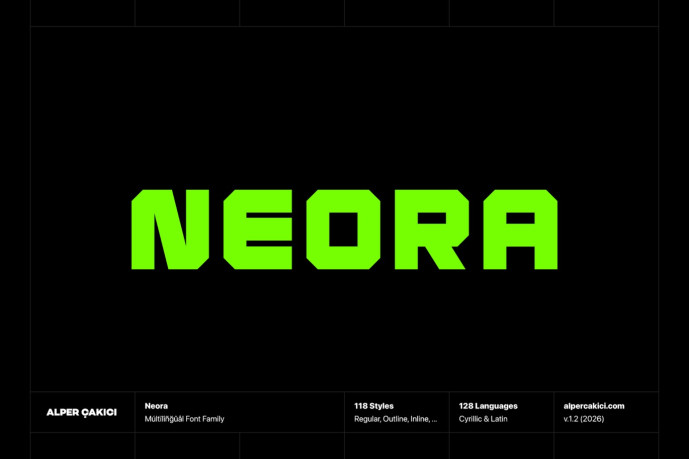
Neora is a powerful display typeface built with a bold, military-inspired attitude. Designed to convey strength, resilience, and impact, it blends structured geometry with rugged textures to create a commanding visual presence.
The family includes an exceptional 118 styles, ranging from clean and solid forms to heavily distressed variations. Styles such as Aged, Brush, Chalk, Dry, Edgy, Grainy, Gritty, Hazy, Inline, Outline, Pencil, Rough, Rusty, Sketchy, Traced, and Worn provide rich textural diversity. Additionally, Circular and Rounded variants expand its adaptability, while matching italics enhance flexibility across compositions.
Supporting both Latin and Cyrillic scripts, Neora offers extensive multilingual coverage, making it a versatile choice for global design projects.